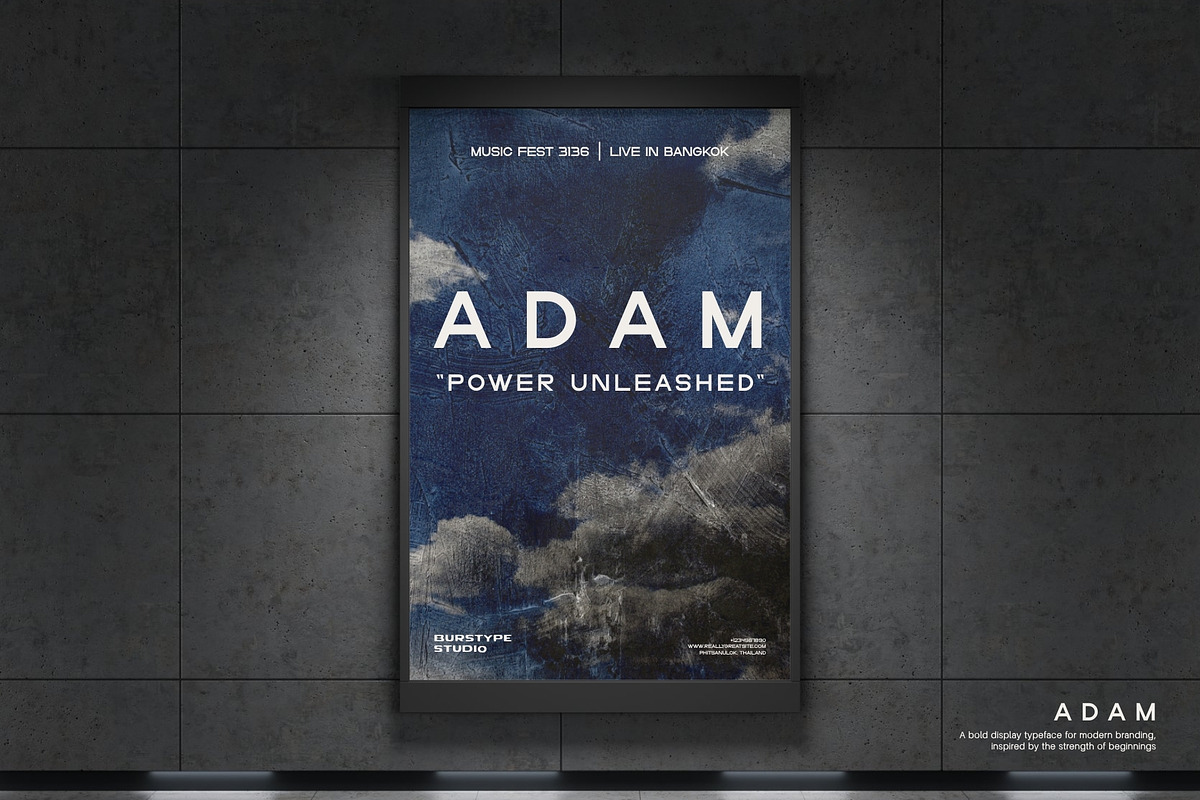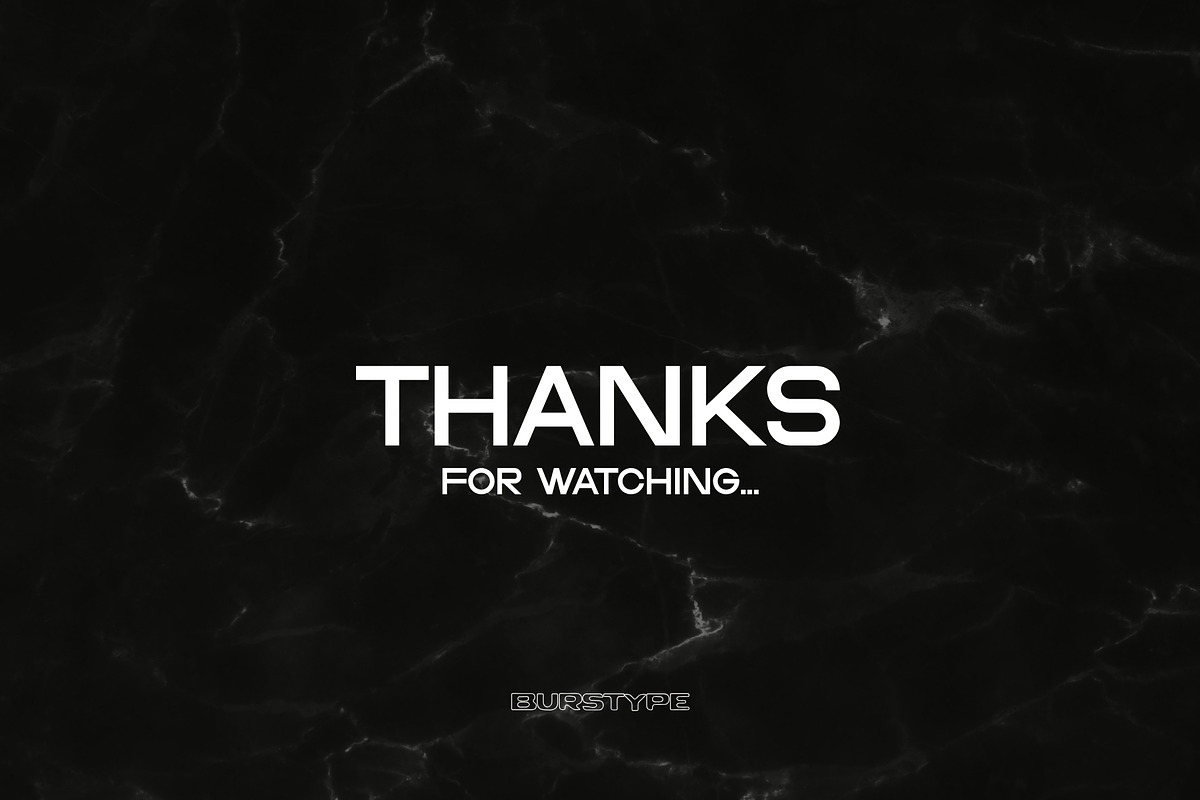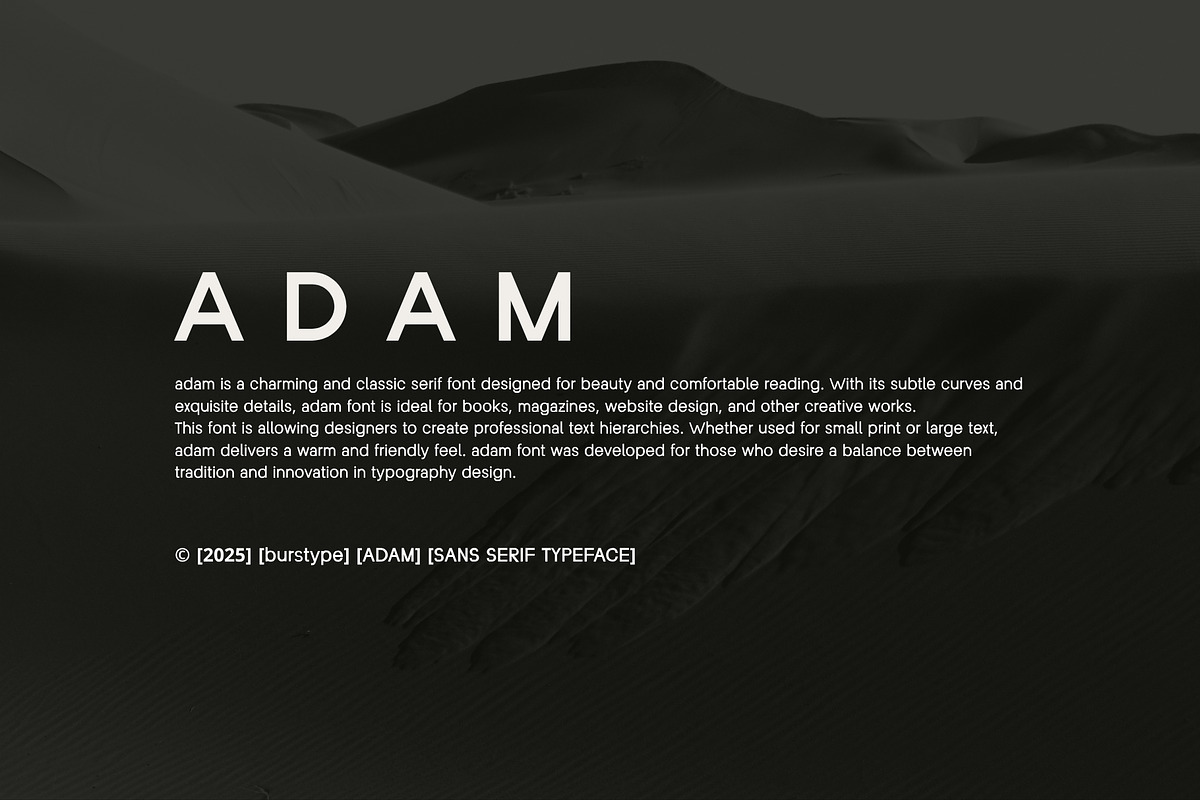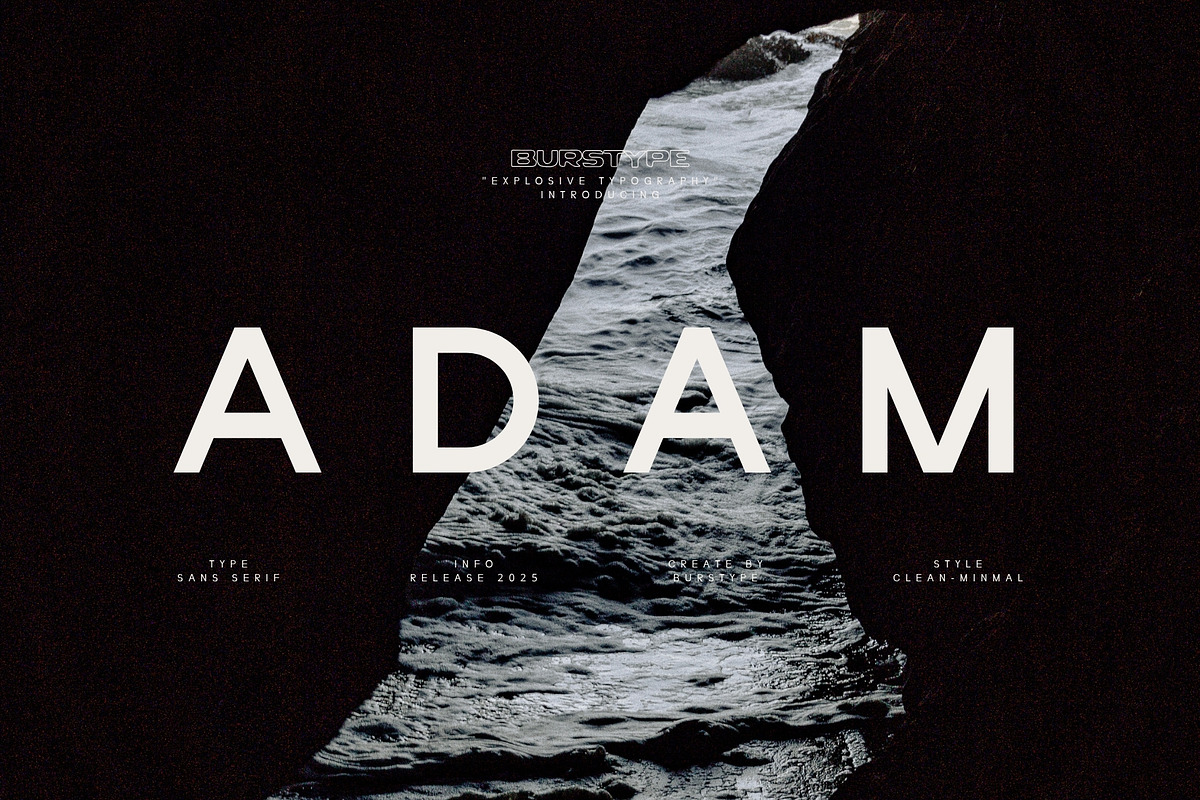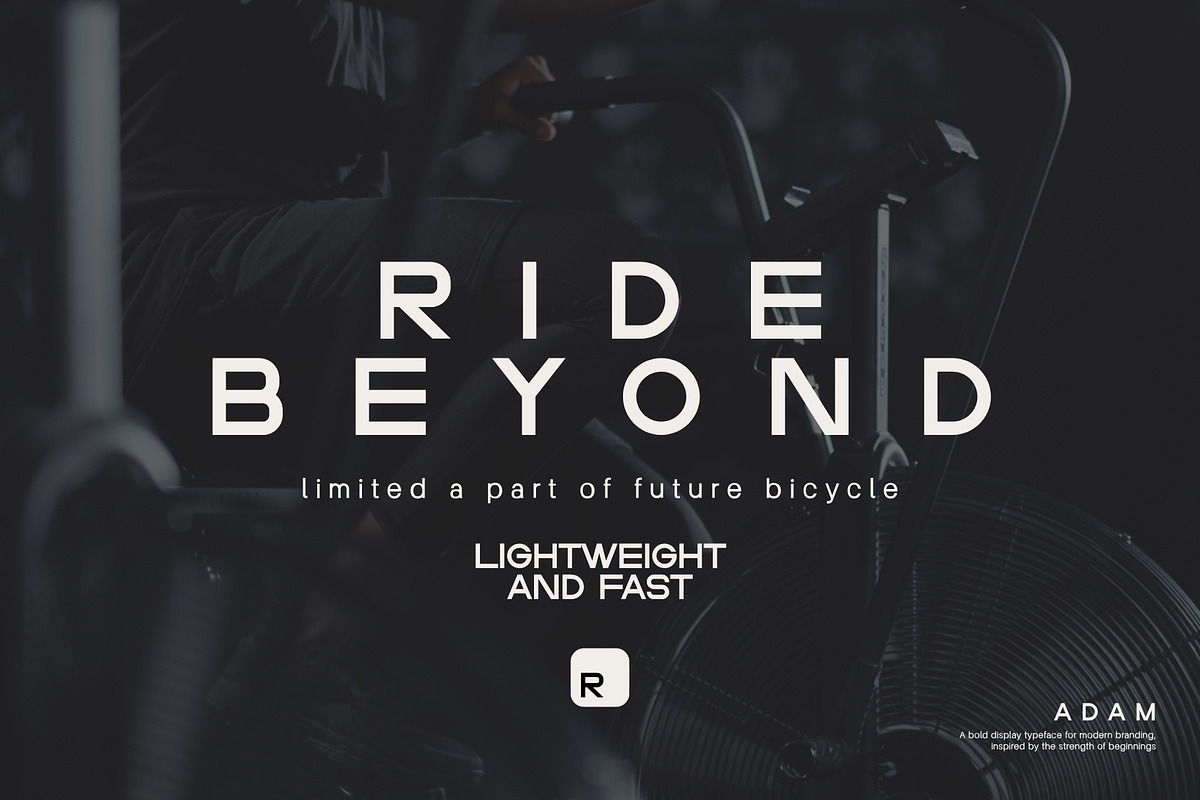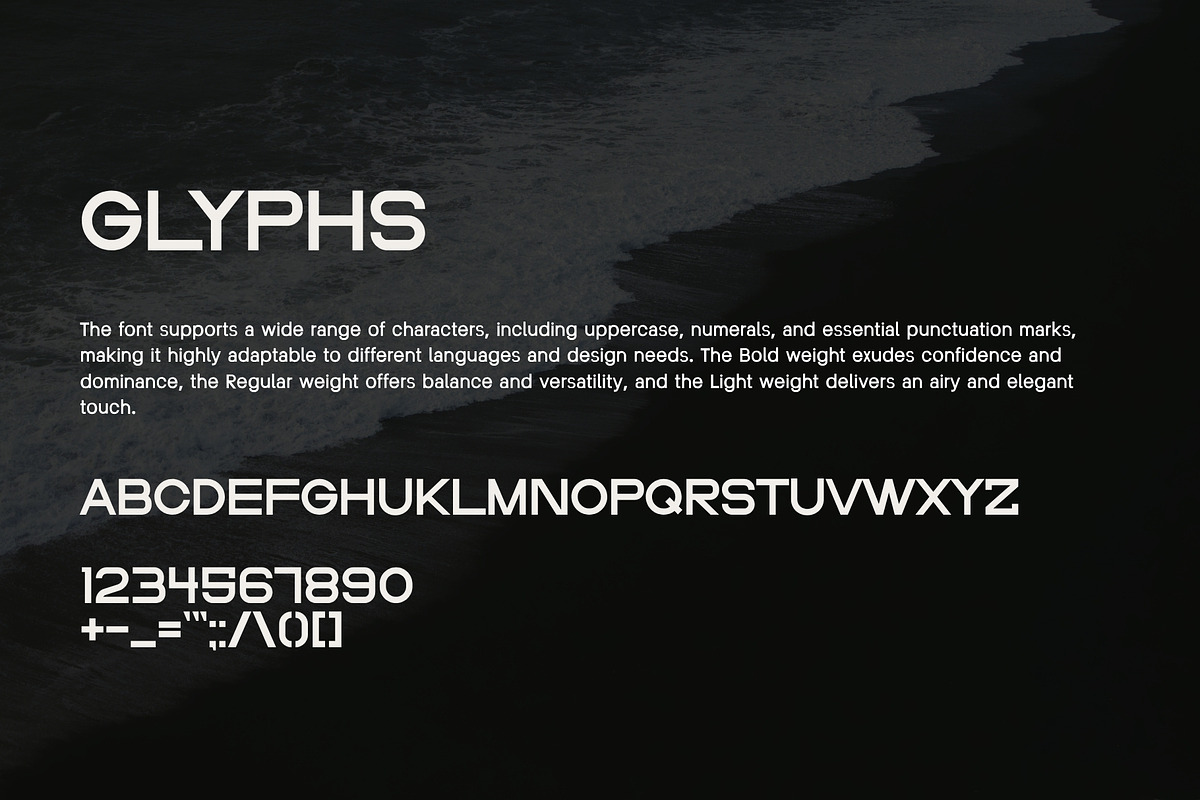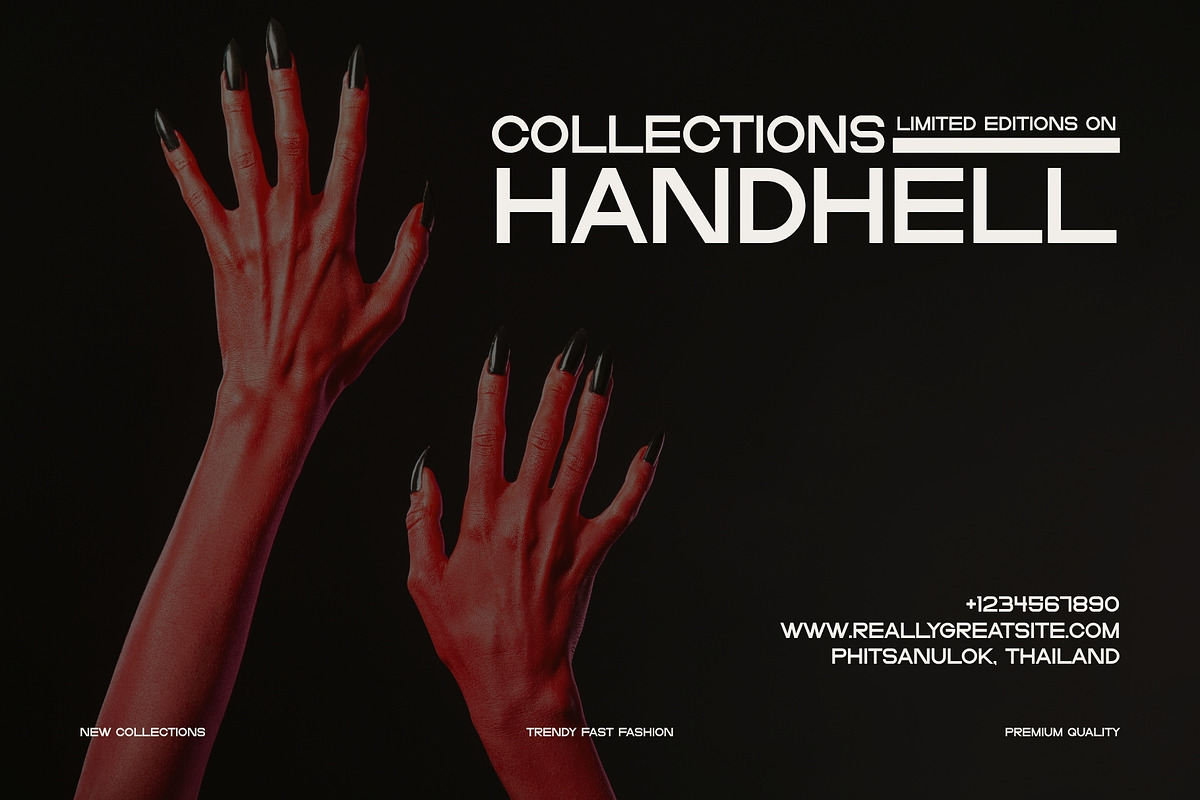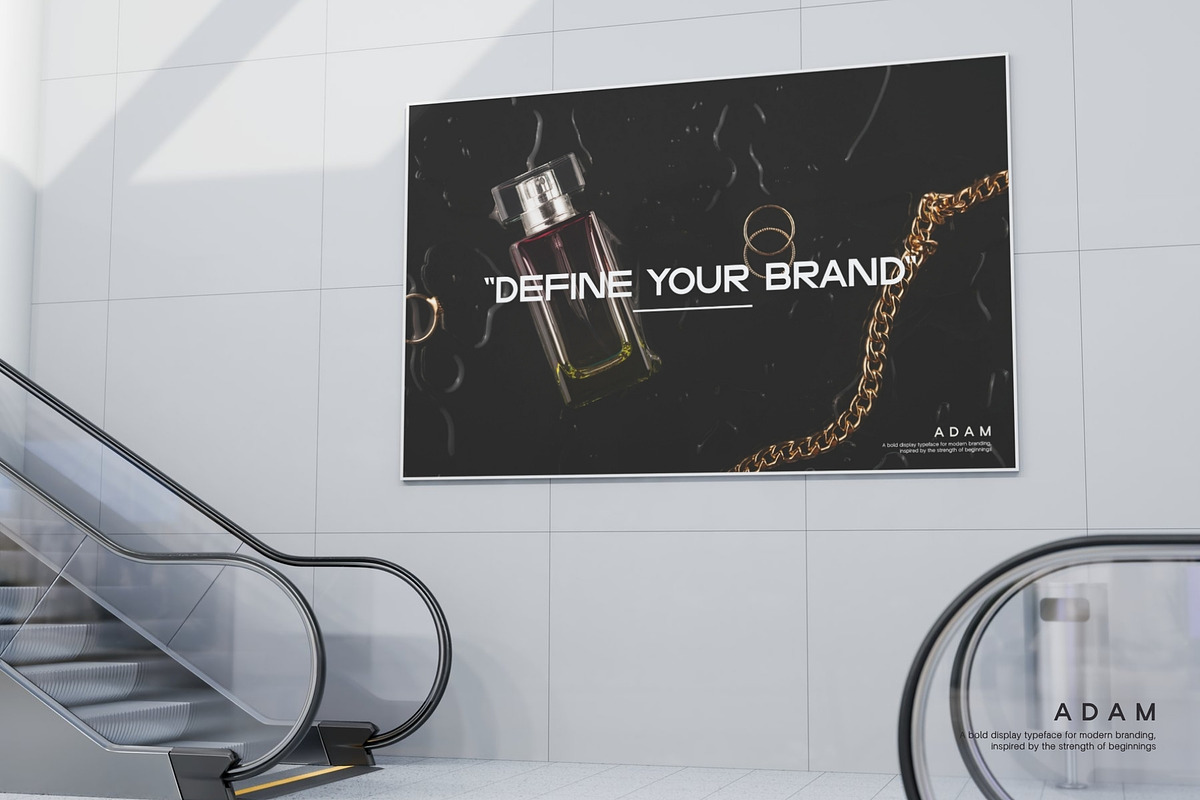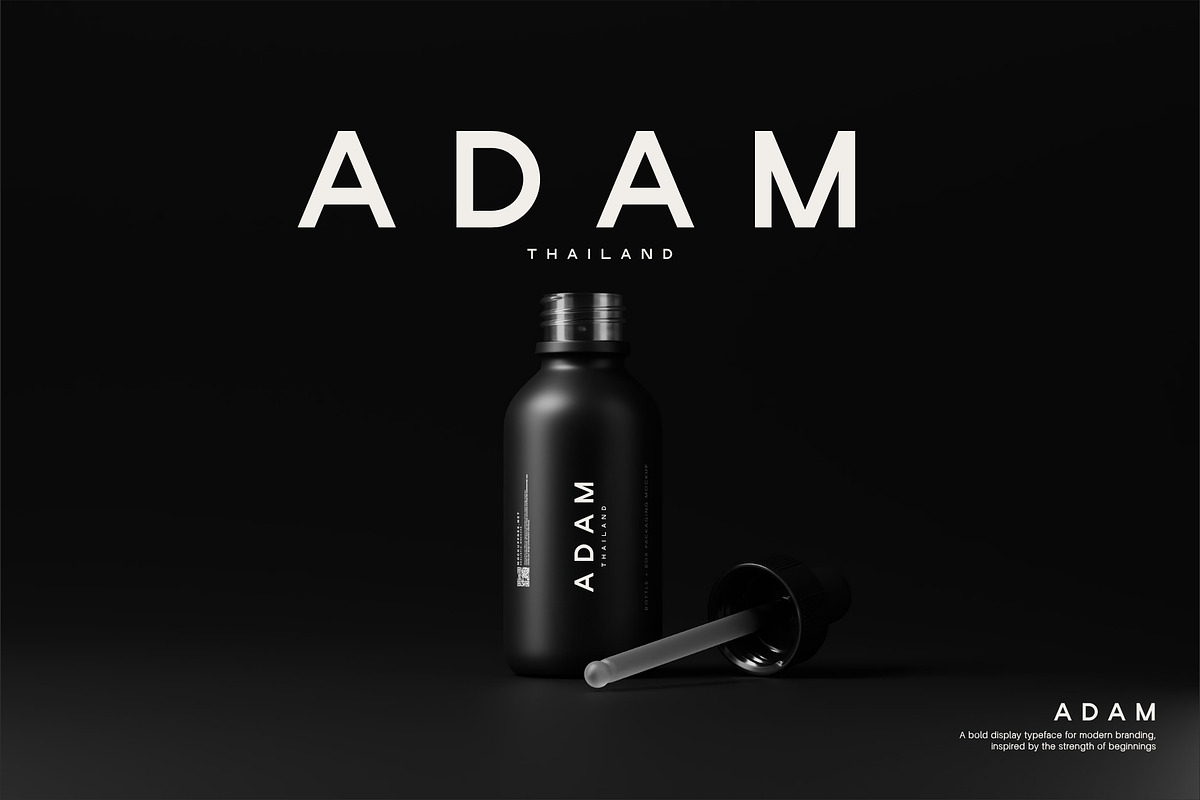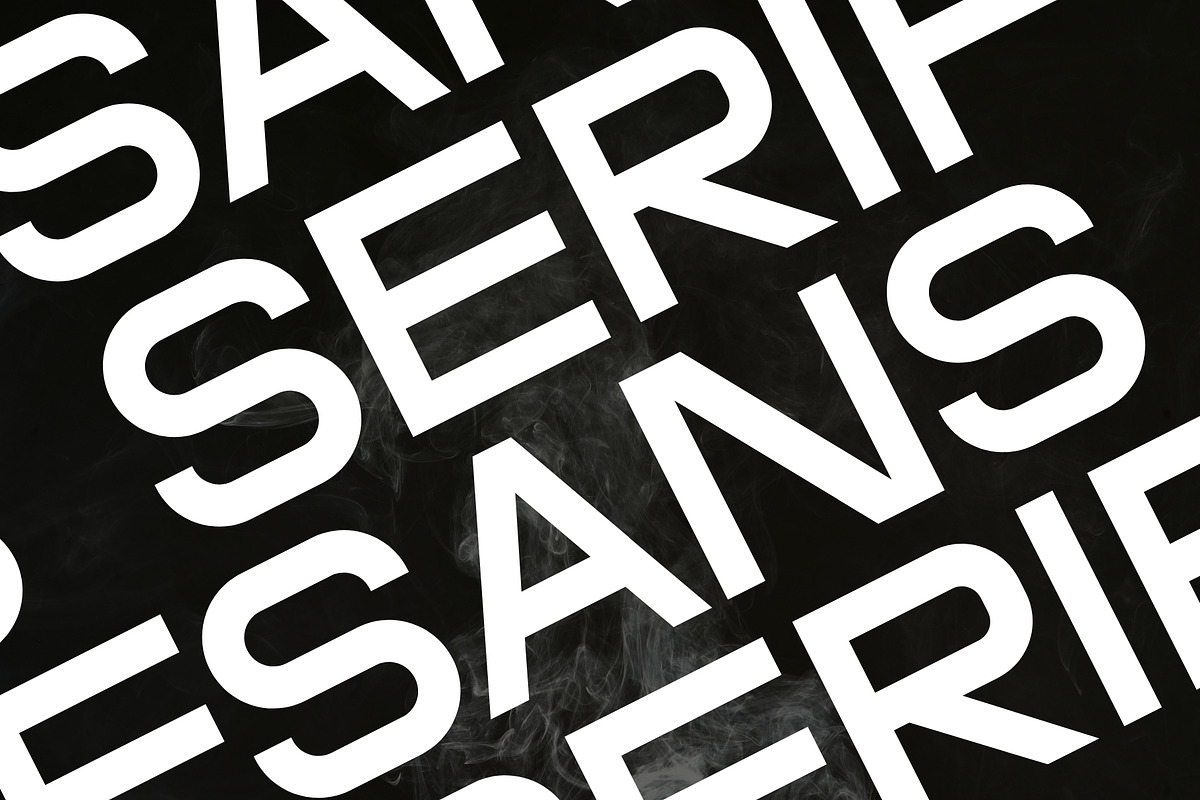
ADAM - Regular Sans Serif
Adam is a charming and classic serif font designed for beauty and comfortable reading. With its subtle curves and exquisite details, adam font is ideal for books, magazines, website design, and other creative works. This font is allowing designers to create professional text hierarchies. Whether used for small print or large text, Adam delivers a warm and friendly feel. Adam font was developed for those who desire a balance between tradition and innovation in typography design.